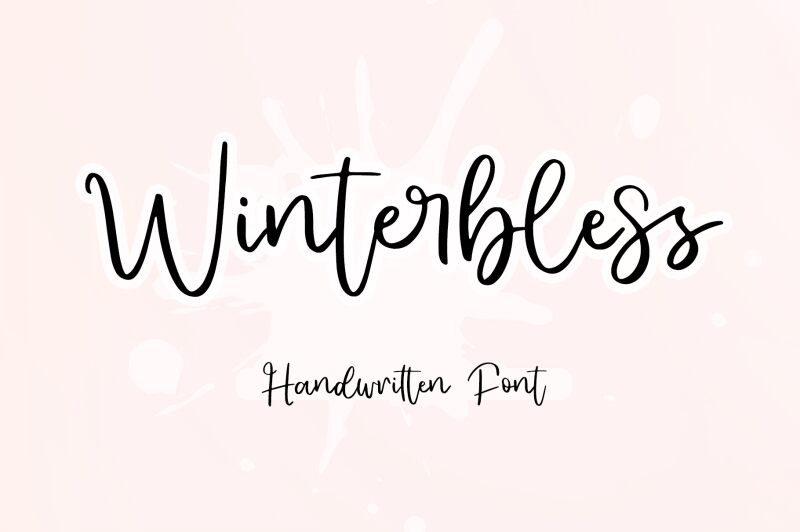
Winterbless font by Letterafa Studio is a light, handwritten typeface that beautifully encapsulates casual elegance and an expressive style. Each letter is given careful attention to simulate a clean brush pen - drawing style without the actual mess. In addition to readability, gentle undertones of warmth are projected through the flawless glyph shapes of this free handwritten font.
Winterbless alone creates wonders with thank you cards, postcards, merchandise tags, welcome signs, and handwriting-like mockups. It can be your next partner for all custom logotypes as well as branding for coffee shops and other small businesses.